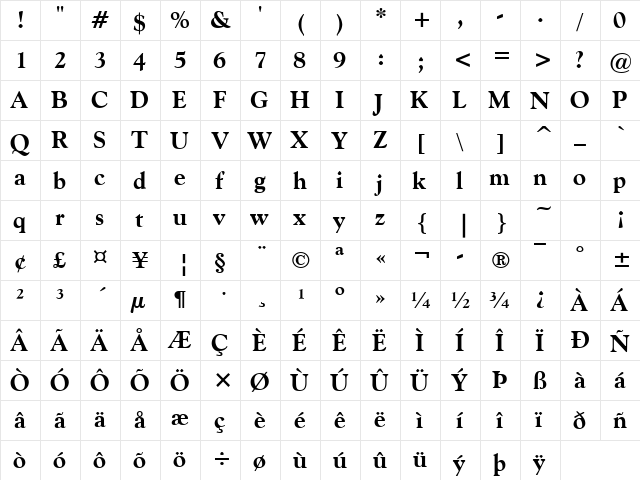
CordialBlk Bold
Design Context for CordialBlk Typeface
CordialBlk offers clean, dependable letterforms without strong stylistic allegiance, making it a practical choice for designers who need flexibility. The heavy weight commands attention and anchors typographic hierarchies.